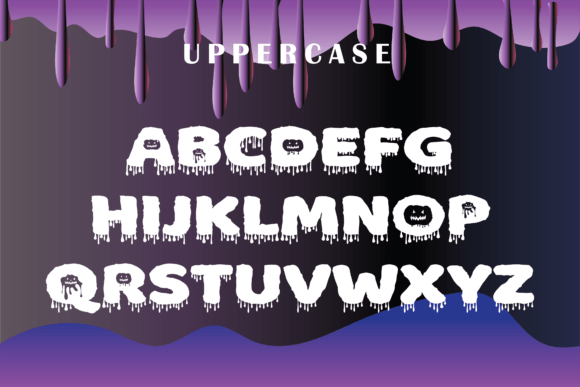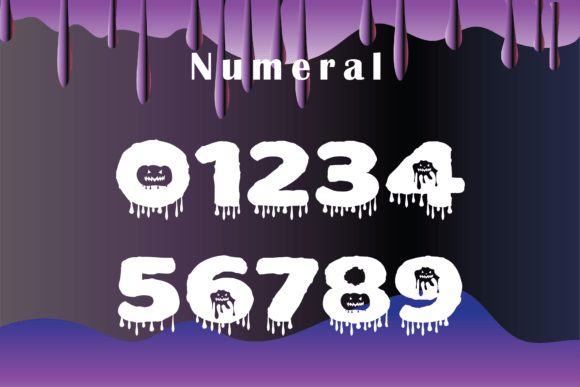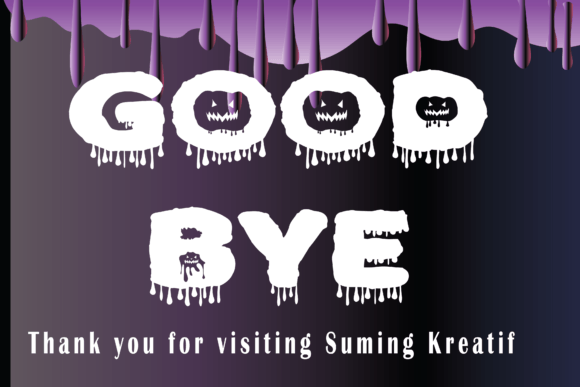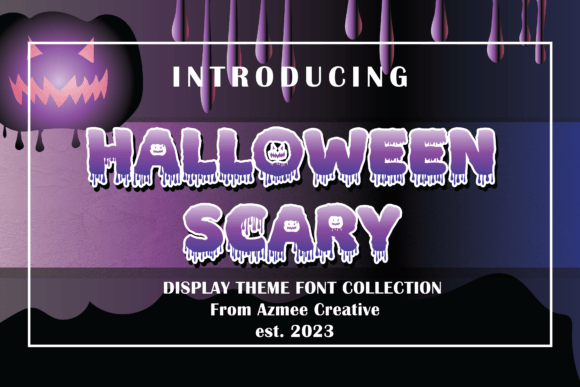
Unleash the Spook: Elevate Your Designs with Halloween Scary Font
Halloween Scary is a stylish and eye-catching typeface designed for use in headlines, titles, and other short bursts of text. With its bold lines, elegant curves, and unique character shapes, it adds a touch of sophistication to any design project. Perfect for advertising, branding, and print design, this font will make your message stand out.
The Spooky Charm of Halloween Scary Font
Halloween Scary Font is not just a typeface; it’s an experience. It brings to life the essence of Halloween with its eerie yet elegant design. Each character is crafted to convey a sense of mystery and intrigue, making it perfect for designs that require a touch of the macabre. Whether you’re working on a Halloween-themed project or simply want to add a dash of drama to your designs, Halloween Scary Font is the perfect choice.
Key Features of Halloween Scary Font
- Unique Character Shapes: The font boasts unique and creative character shapes that set it apart from more traditional typefaces. Each letter and number has been carefully designed to contribute to the overall spooky yet sophisticated feel of the font.
- Bold Lines and Elegant Curves: The combination of bold lines and elegant curves gives Halloween Scary Font its distinctive look. This balance ensures that the font is not only eye-catching but also aesthetically pleasing.
- Versatility: Despite its Halloween theme, Halloween Scary Font is surprisingly versatile. It can be used in a variety of design projects, from Halloween-themed party invitations and decorations to more general use in advertising and branding.
- Easy to Read: While the font has a unique and stylized appearance, it remains easy to read, even in larger blocks of text. This makes it suitable for use in both headlines and shorter paragraphs of text.
Using Halloween Scary Font in Your Designs
Halloween Scary Font can elevate a wide range of design projects. Here are a few ideas to get you started:
- Halloween-themed Designs: The most obvious use for Halloween Scary Font is in Halloween-themed designs. Use it for party invitations, Halloween decorations, trick-or-treat bags, and more.
- Advertising and Marketing: The font’s bold and eye-catching design makes it perfect for use in advertising and marketing materials. Use it to create stand-out headlines and titles that grab attention.
- Branding: If you’re looking to create a brand with a unique and memorable identity, Halloween Scary Font could be the perfect choice. Its distinctive look can help your brand stand out in a crowded market.
- Print Design: Whether you’re working on a poster, flyer, or brochure, Halloween Scary Font can add a touch of elegance and sophistication to your design.
Tips for Getting the Most Out of Halloween Scary Font
To truly get the most out of Halloween Scary Font, consider the following tips:
- Experiment with Sizes: Don’t be afraid to experiment with different sizes to see how Halloween Scary Font looks in various contexts. It can be just as effective in smaller sizes for captions and tags as it is in larger sizes for headlines.
- Pair it with Other Fonts: Halloween Scary Font works well when paired with more simple, sans-serif fonts. This contrast can help to create visual interest and make your design more dynamic.
- Play with Colors: While the font itself is quite striking, playing with different colors can further enhance its impact. Consider using Halloween-themed colors like orange, black, and purple to reinforce the theme.
| Font Name | Halloween Scary Font |
| Author | Suming Kreatif |
Halloween Scary Font is a versatile and stylish typeface that can add a touch of sophistication and intrigue to any design project. Its unique character shapes, bold lines, and elegant curves make it perfect for a wide range of uses, from Halloween-themed designs to more general applications in advertising, branding, and print design. By incorporating Halloween Scary Font into your designs, you can create eye-catching and memorable pieces that stand out from the crowd.